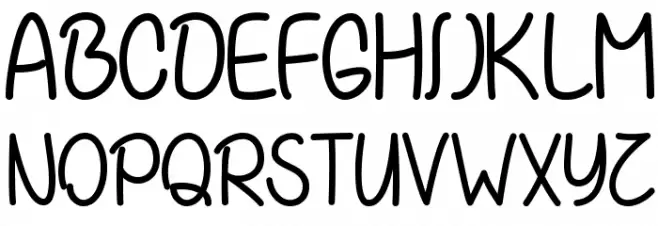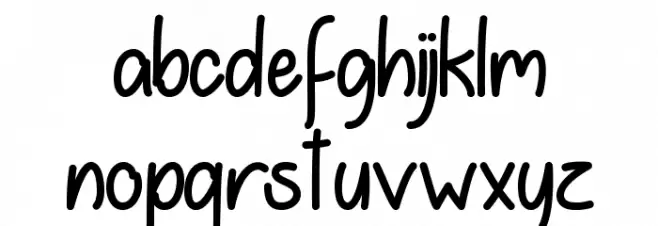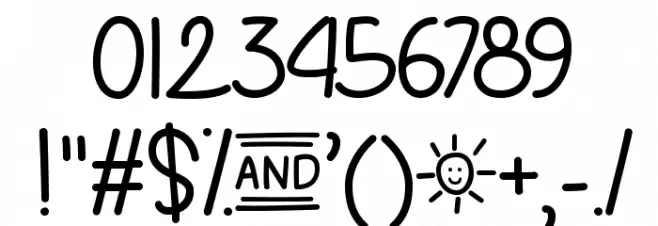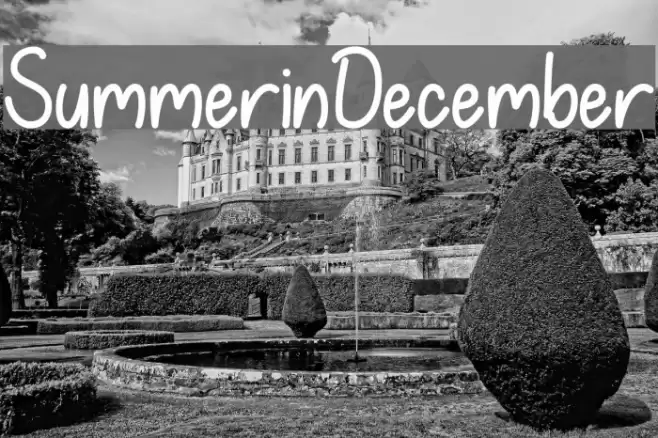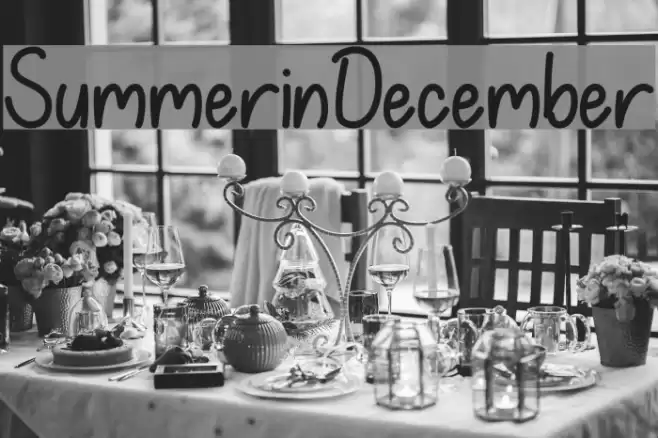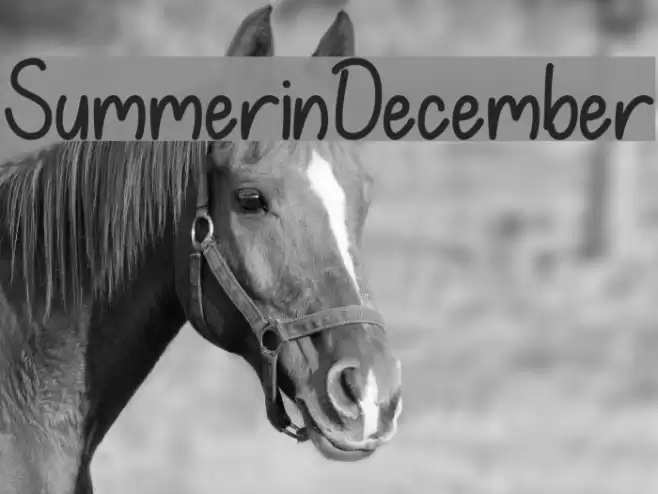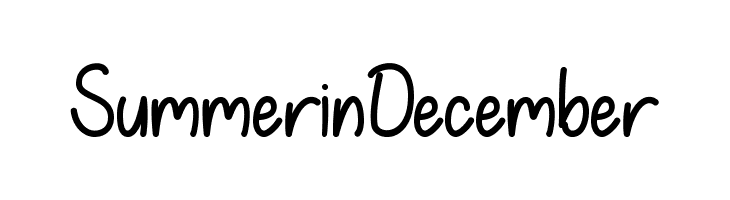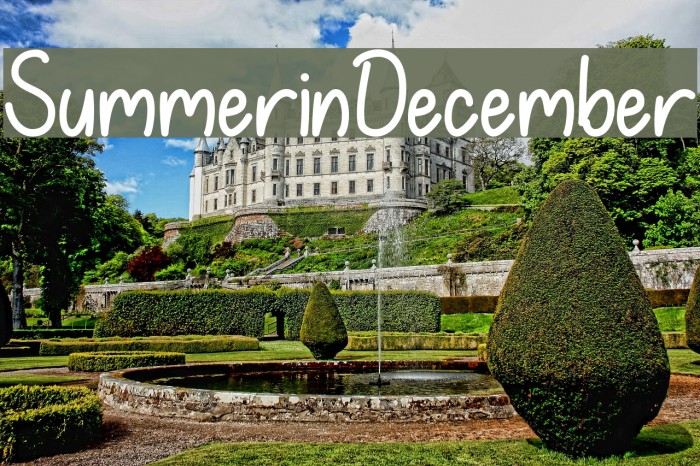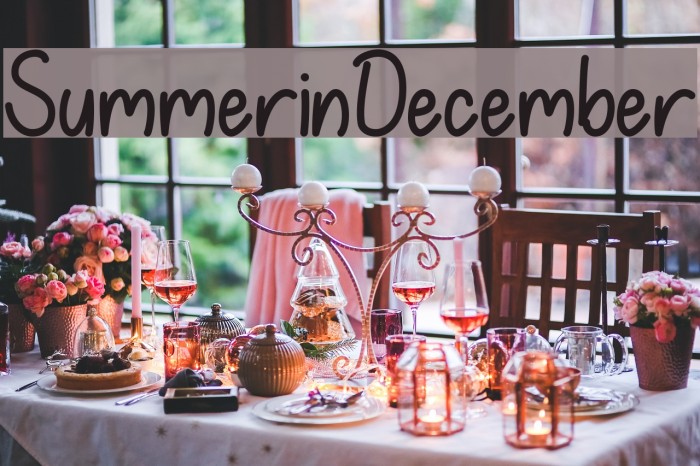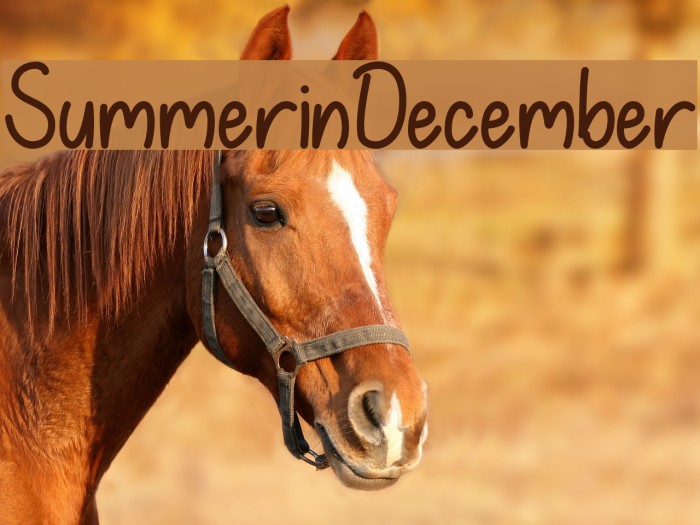
SummerinDecember
This playful and whimsical font features a handwritten style with a casual and friendly appearance. The characters are slightly rounded with a consistent stroke width, giving it a smooth and approachable look. The uppercase letters are bold and prominent, while the lowercase letters maintain a consistent flow, enhancing readability. The numbers and special characters are designed to match the overall style, with unique and creative elements like the sun and smiley face. This font exudes a sense of fun and creativity, making it ideal for projects that require a personal touch.
A playful, handwritten font with a casual and friendly style.
- Proposed Projects: Ideal for children's books, greeting cards, playful branding, and social media graphics.
- Overall Style: Casual, Playful
- Use Case: Headlines, Logos, Social Media Graphics